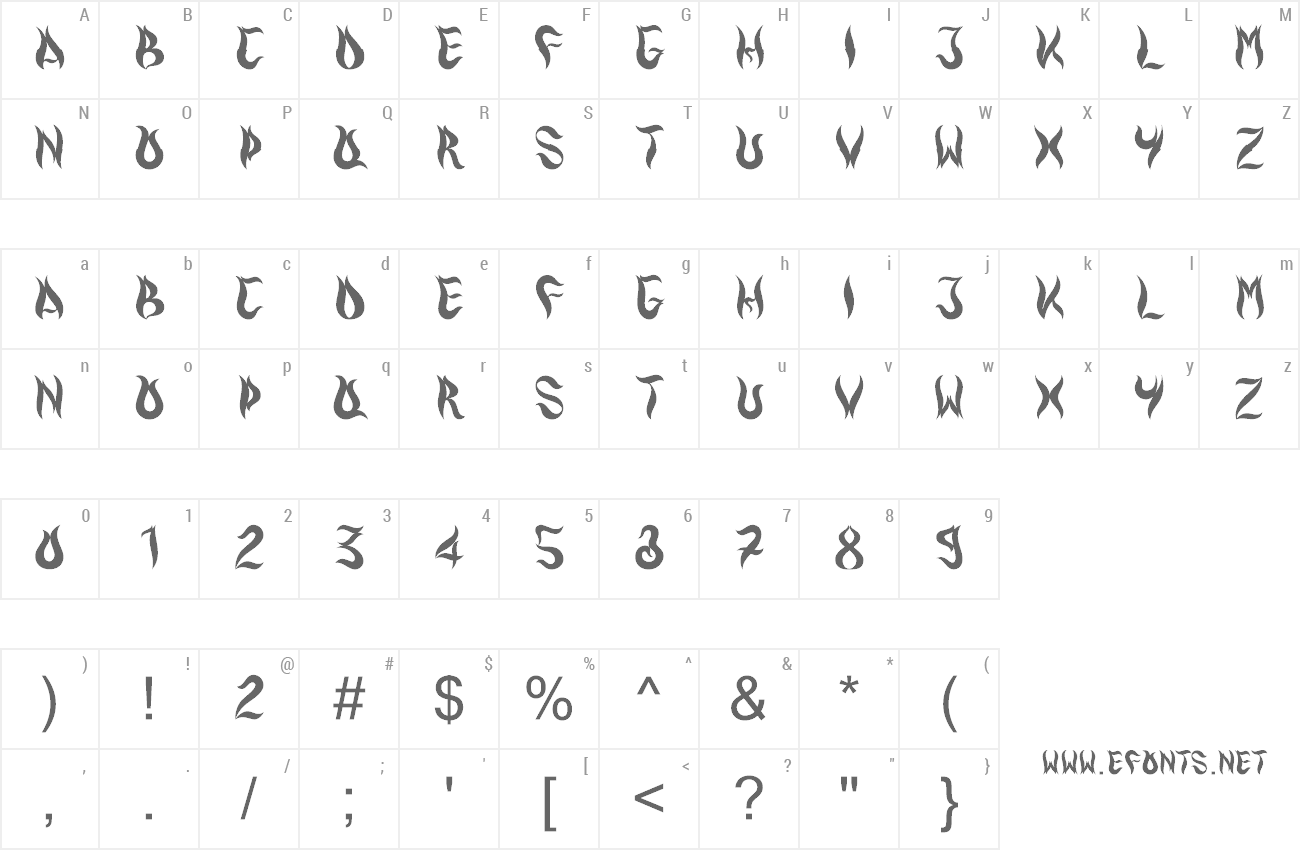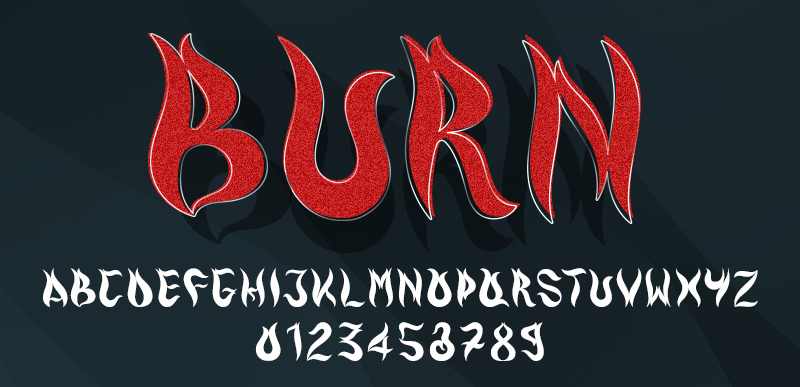
Preview and download Burn Font. Created by Biroakakarati in Fancy Fire, Ice styles with Free for personal use license.
This is the most dangerous font like a flame! My name is BURN! 🔥🔥 Use me for a hot scene! For commercial use or to support my fonts push the button "Donate" (Paypal account) or contact me. Have a good vibes! |